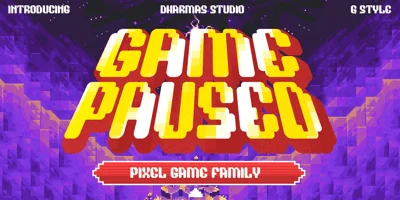
Game Paused Font
Game Paused Font is ideal for video game interface design, gaming tournament materials, esports event branding, retro arcade signage, gaming cafe marketing, controller packaging design, streaming platform graphics, game development studio branding, gaming convention promotions, and interactive entertainment projects that celebrate gaming culture and digital entertainment experiences.
What makes Game Paused Font exciting is its nostalgic ability to capture the suspended animation and anticipatory tension of gaming moments through its pixelated letterforms that seem frozen in digital time, waiting for the player to resume their virtual adventure. This captivating typeface embodies the spirit of gaming culture with its arcade character that speaks of high scores, epic boss battles, and those crucial moments when real life interrupts virtual worlds, creating a bridge between digital entertainment and everyday existence.
The Game Paused Font family includes regular, bold, and glitch variations designed to maintain its gaming authenticity across various digital entertainment applications. Special gaming symbols, controller ornaments, and pixel-art decorative elements complement the main typeface, while digital spacing ensures optimal readability for both intimate gaming setups and large esports arena displays requiring maximum visual impact.
Game Paused Font offers gaming enthusiasts and digital designers access to typography that understands gamer culture. Its authentically crafted letterforms maintain excellent legibility while projecting an image of gaming expertise and digital entertainment passion. The font's versatile nature works brilliantly for both indie game developers and major gaming corporations.
Press play with Game Paused Font and create designs that celebrate gaming culture while connecting with audiences who live for digital adventures and virtual achievements.